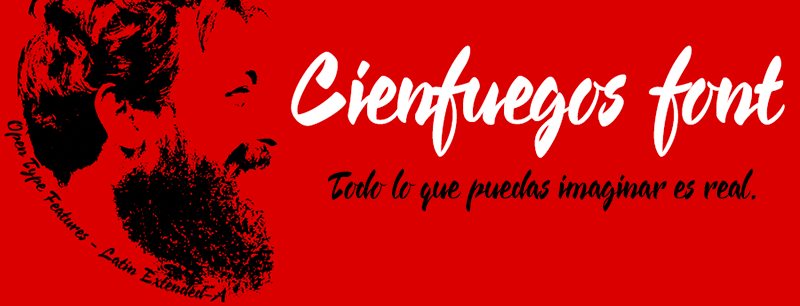
Font name: | Cienfuegos |
Cienfuegos is a concatenated handwritten font. The name is dedicated to Camilo Cienfuegos, Cuban revolutionary humanist raised in freedom by two Spanish anarchists, their parents. --------- • Bitcoin symbol (ligatures): b# --------- • Free for Personal Use Only. • FULL VERSION + COMMERCIAL LICENSE: https://defharo.com/fonts/cienfuegos-font/ |